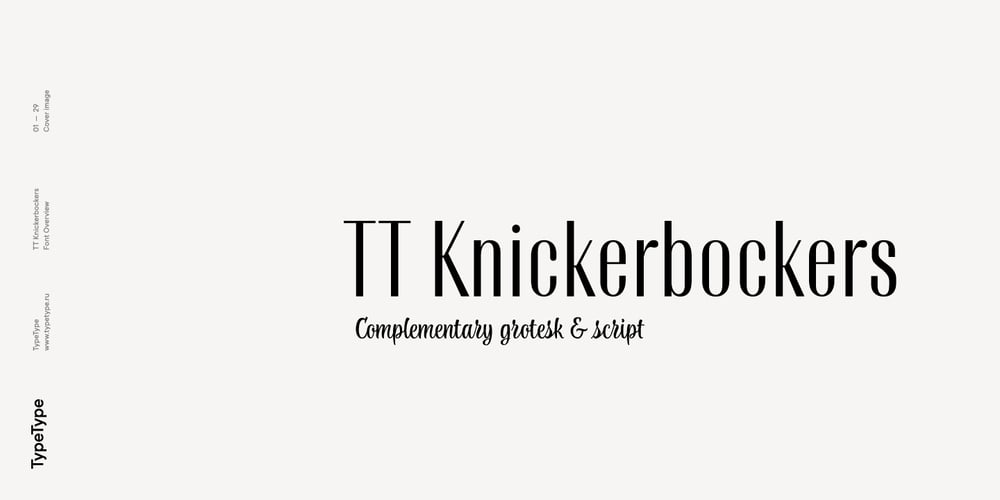
TT Knickerbockers Font Family was designed by Yuliana Morgun, Nadezhda Polomoshnova, TypeType Team and published by TypeType. TT Knickerbockers contains 2 styles and family package options. TT Knickerbockers useful links:Specimen PDF | Graphic presentation | Customization optionsAbout TT Knickerbockers: TT Knickerbockers is a contrasting pair of fonts that continues our project series dedicated to different cities. The new project is dedicated to New York with its multiculturalism, historicity, creativity, energy, and to its inhabitants. TT Knickerbockers Grotesk symbolizes the monumentality of New York expressed in both its traditional historic architecture and skyscrapers. Energy, constant movement and the round-the-clock life of New York—all this is reflected in our TT Knickerbockers Script. TT Knickerbockers Grotesk is a narrow contrast sans-serif with characteristic elements sending us back to the 19th century. There’s also a reference to antiqua fonts to be noticed in the font: where in traditional antiqua there would be serifs, TT Knickerbockers Grotesk features a straight stroke ending, and traditional drops (finals, tails and ears) are substituted with rounded strokes. In TT Knickerbockers Grotesk you will find unusual characters, stylistic alternatives and ligatures. The following OpenType features are implemented: ordn, case, frac, sups, sinf, numr, dnom, onum, tnum, pnum, liga, dlig, salt, ss01. TT Knickerbockers Script is a bright and at the same time a little restrained brushpen script with a slight touch of aristocracy. TT Knickerbockers Script consists of 967 characters and also contains a huge number of contextual alternatives and ligatures. For all lowercase and uppercase letters of basic Latin and Cyrillic alphabets we have drawn 236 swashes which, depending on the context, can appear both at the beginning and at the end of a letter. Do not forget to enable OpenType support and enjoy all the opportunities that the typeface provides and its built-in features: ordn, frac, case, sups, sinf, numr, dnom, onum, tnum, pnum, calt, swsh, liga.FOLLOW US:Instagram | Facebook | WebsiteTT Knickerbockers language support: Acehnese, Afar, Albanian, Alsatian, Aragonese, Arumanian, Asu, Aymara, Banjar, Basque, Belarusian (cyr), Bemba, Bena, Betawi, Bislama, Boholano, Bosnian (cyr), Bosnian (lat), Breton, Bulgarian (cyr), Cebuano, Chamorro, Chiga, Colognian, Cornish, Corsican, Cree, Croatian, Czech, Danish, Embu, English, Erzya, Estonian, Faroese, Fijian, Filipino, Finnish, French, Friulian, Gaelic, Gagauz (lat), Galician, German, Gusii, Haitian Creole, Hawaiian, Hiri Motu, Hungarian, Icelandic, Ilocano, Indonesian, Innu-aimun, Interlingua, Irish, Italian, Javanese, Judaeo-Spanish, Kalenjin, Karachay-Balkar (lat), Karaim (lat), Karakalpak (lat), Kashubian, Khasi, Khvarshi, Kinyarwanda, Kirundi, Kongo, Kumyk, Kurdish (lat), Ladin, Latvian, Laz, Leonese, Lithuanian, Luganda, Luo, Luxembourgish, Luyia, Macedonian, Machame, Makhuwa-Meetto, Makonde, Malay, Manx, Maori, Mauritian Creole, Minangkabau, Moldavian (lat), Montenegrin (lat), Mordvin-moksha, Morisyen, Nahuatl, Nauruan, Ndebele, Nias, Nogai, Norwegian, Nyankole, Occitan, Oromo, Palauan, Polish, Portuguese, Quechua, Rheto-Romance, Rohingya, Romanian, Romansh, Rombo, Rundi, Russian, Rusyn, Rwa, Salar, Samburu, Samoan, Sango, Sangu, Scots, Sena, Serbian (cyr), Serbian (lat), Seychellois Creole, Shambala, Shona, Slovak, Slovenian, Soga, Somali, Sorbian, Sotho, Spanish, Sundanese, Swahili, Swazi, Swedish, Swiss German, Tagalog, Tahitian, Taita, Tatar, Tetum, Tok Pisin, Tongan, Tsonga, Tswana, Turkish, Turkmen (lat), Ukrainian, Uyghur, Vepsian, Volapük, Võro, Vunjo, Xhosa, Zaza, Zulu.